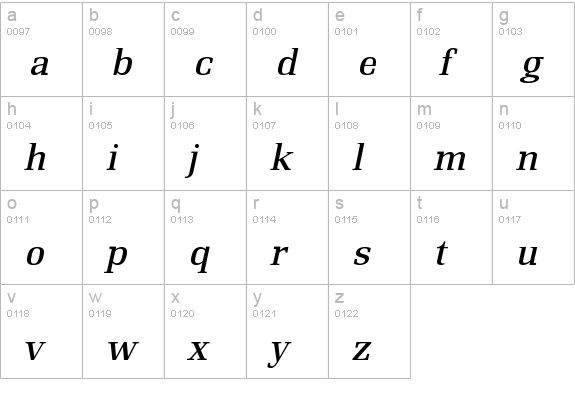
RenaultEF-LightItalic Font Details
Introducing RenaultEF-LightItalic font, a sleek and stylish typeface that will surely captivate your audience. This font exudes a sense of elegance and sophistication, making it the perfect choice for projects that require a touch of class. RenaultEF-LightItalic is the epitome of modern design, with its slanted and italicized characters adding a unique flair to any text. Its clean lines and graceful curves create a harmonious balance, ensuring readability without sacrificing visual appeal. One of the most remarkable features of RenaultEF-LightItalic is that it is available for free. Yes, you heard it right – this stunning font can be freely downloaded at FontsMarket.com. Now, you can elevate your designs without breaking the bank. Whether you're working on a branding project, creating eye-catching advertisements, or designing a sophisticated logo, RenaultEF-LightItalic is the perfect choice to make a lasting impression. Its versatility allows it to seamlessly blend into any design, making it a valuable asset for graphic designers, typographers, and creative professionals. Don't miss out on the opportunity to enhance your projects with this remarkable font. Visit FontsMarket.com today and experience the magic of RenaultEF-LightItalic. Elevate your designs with this sleek and stylish typeface, freely available for download.